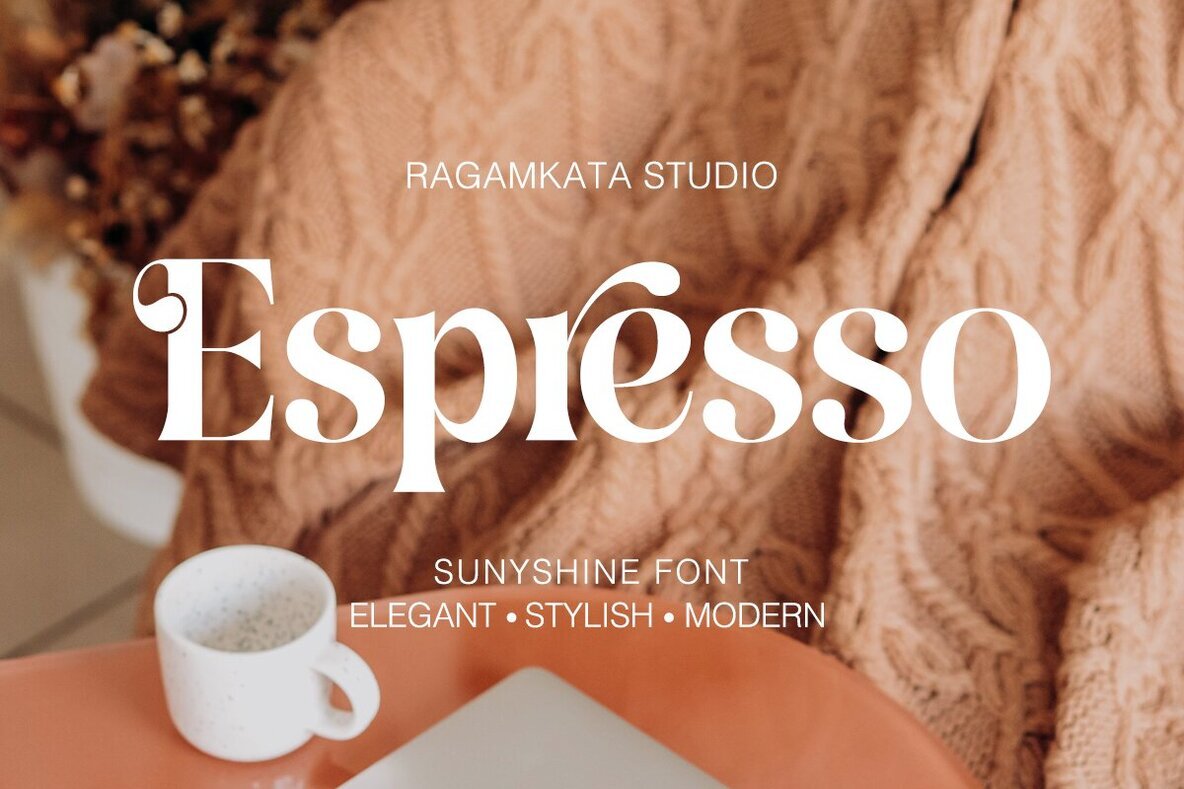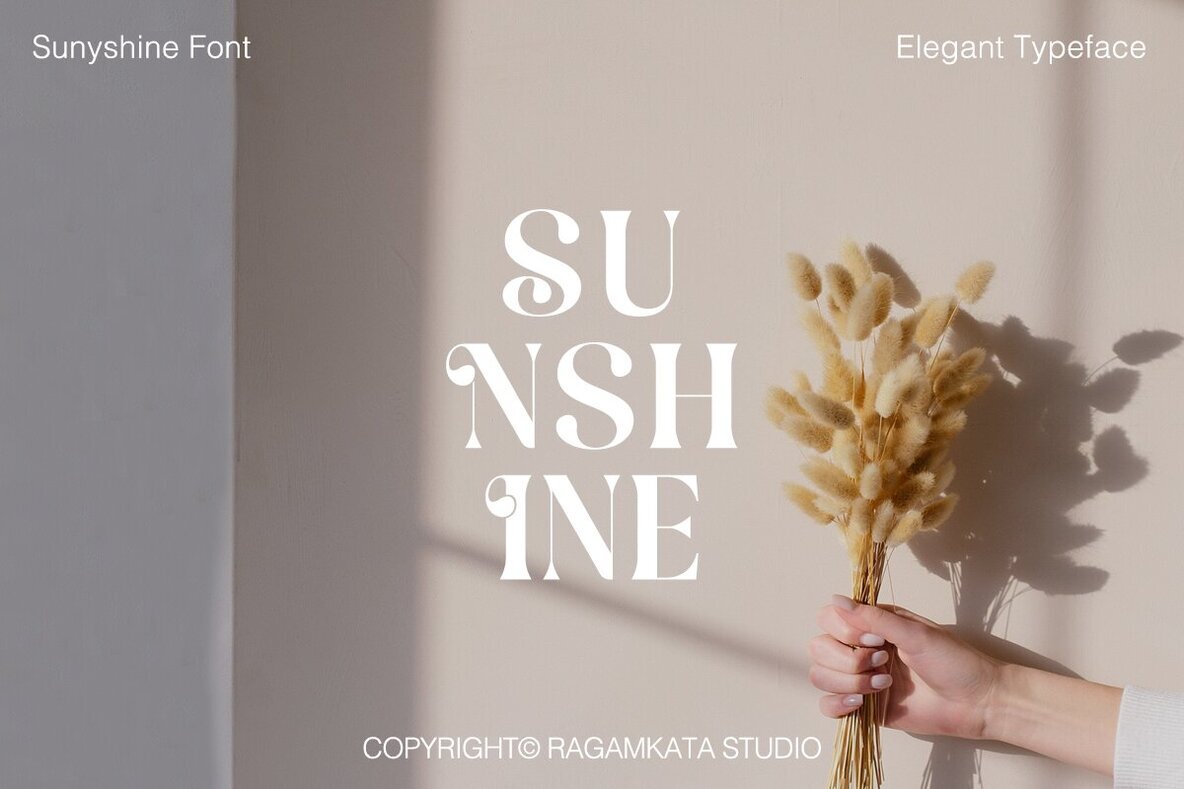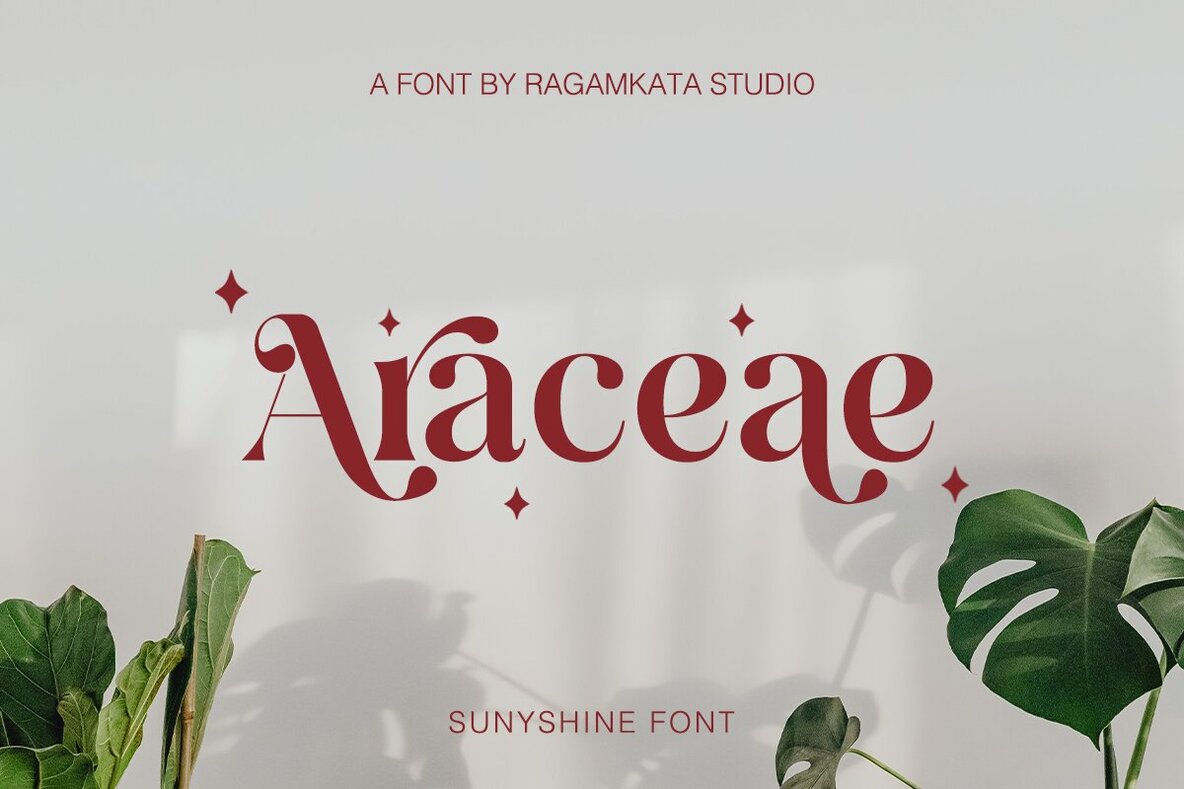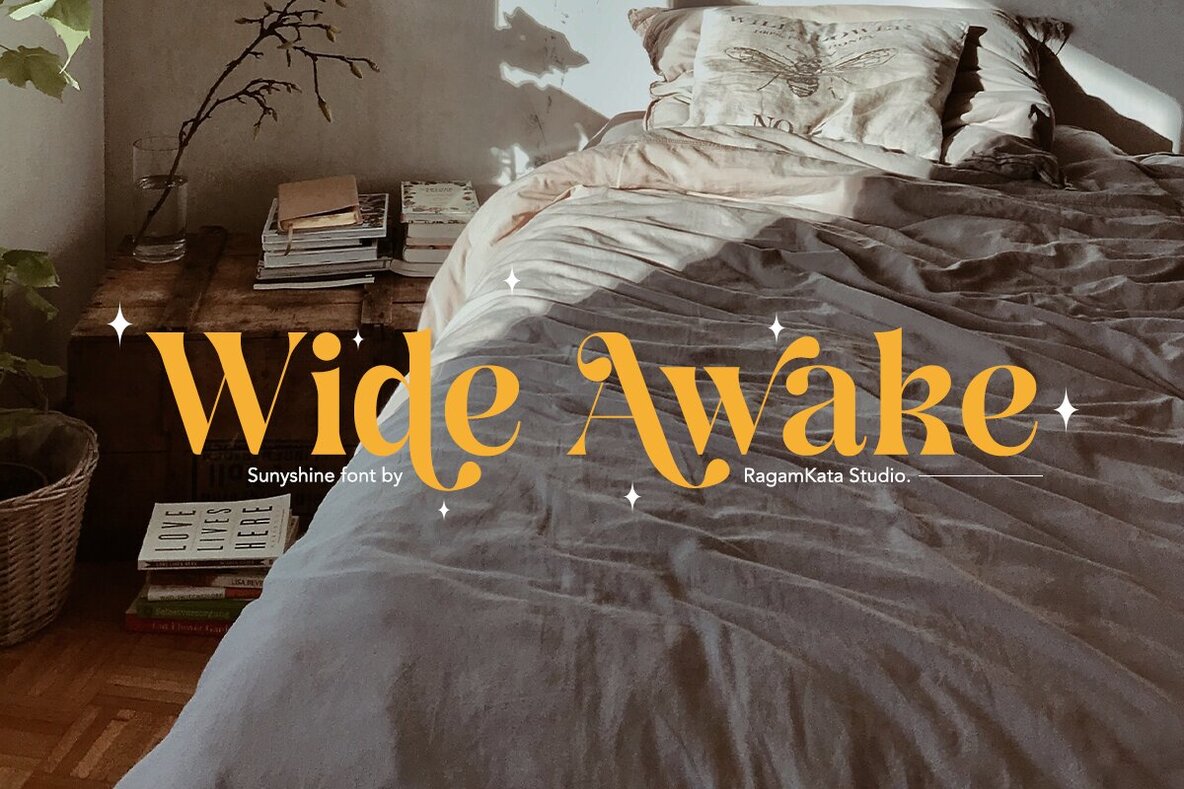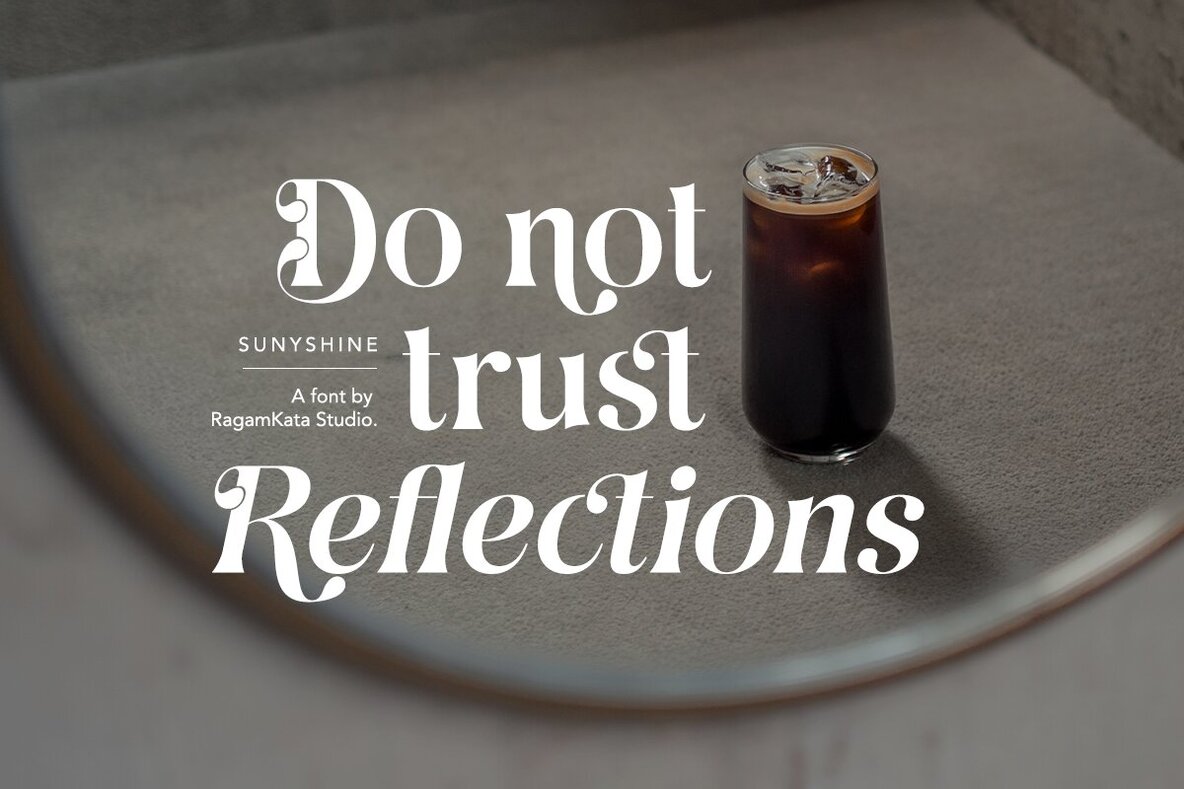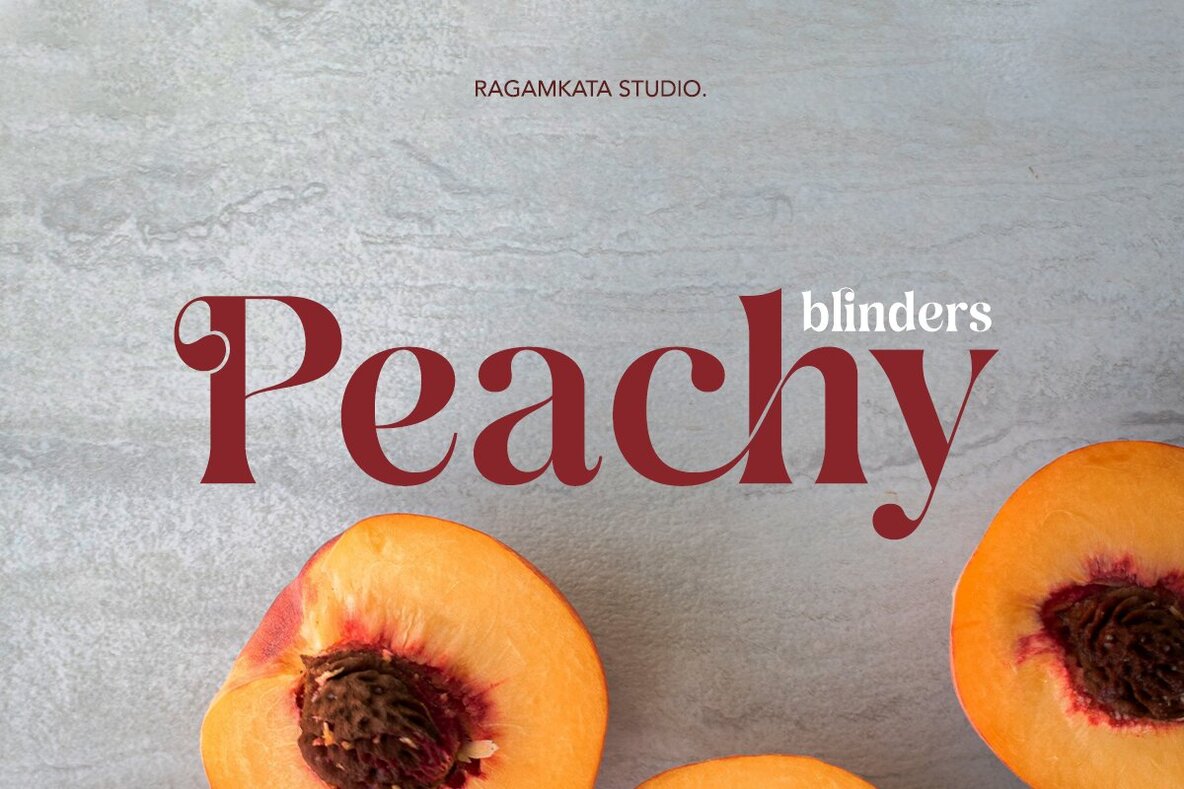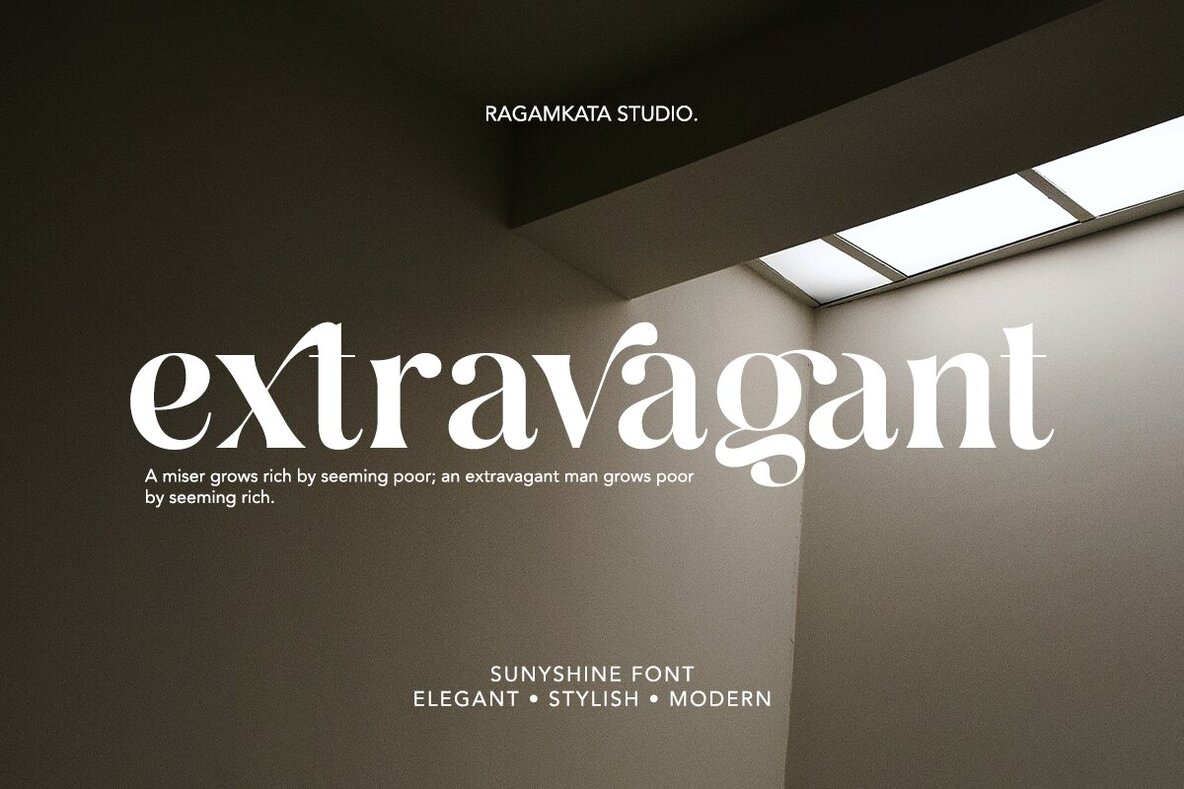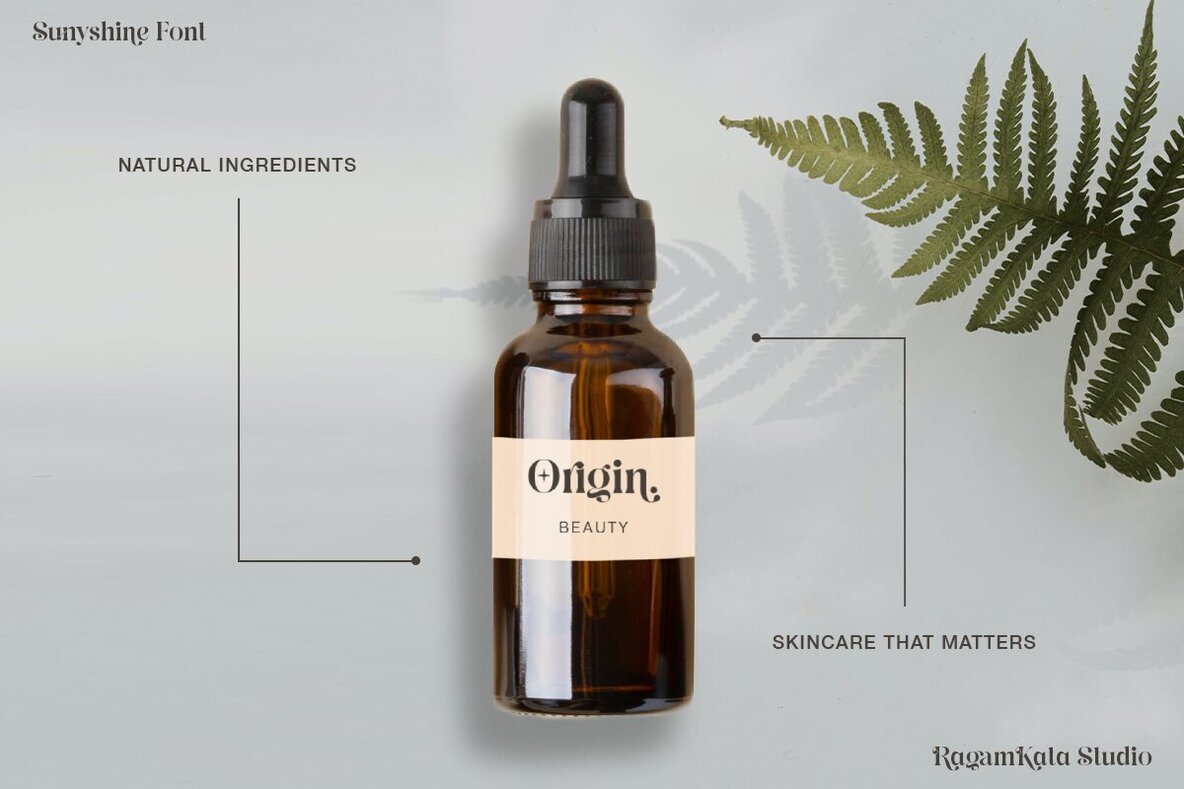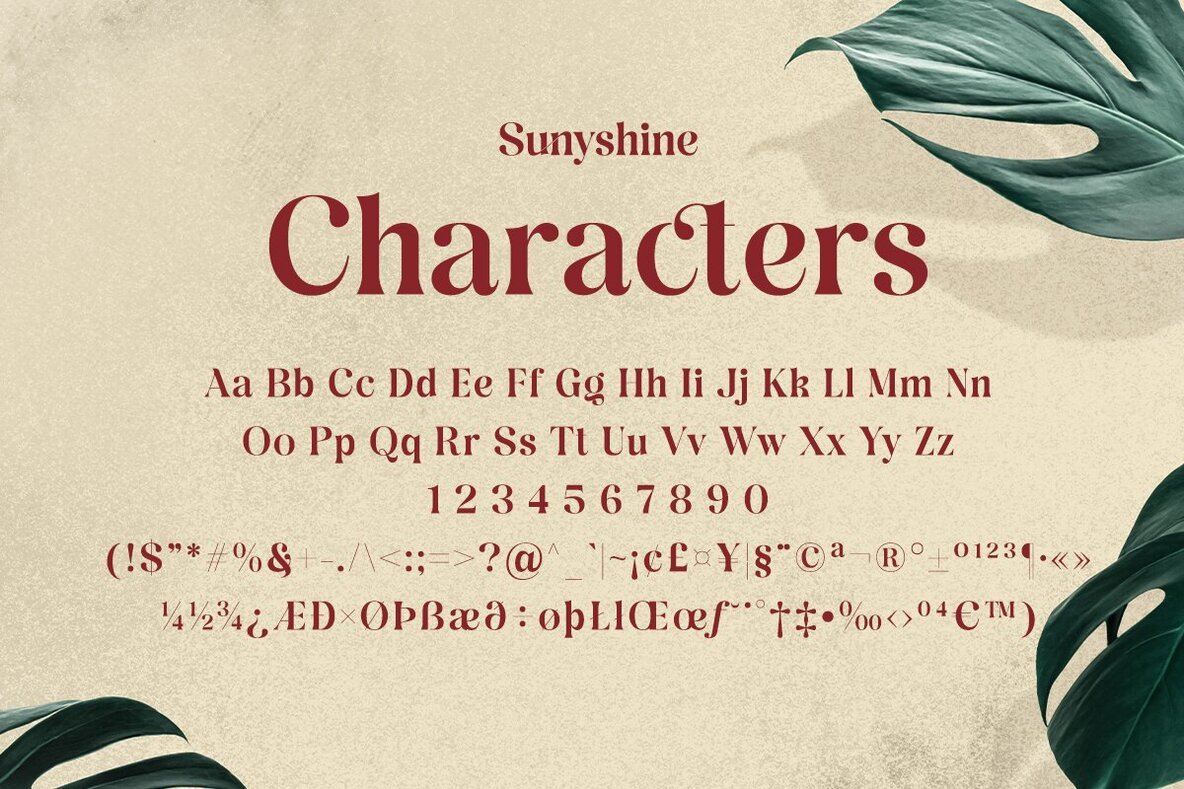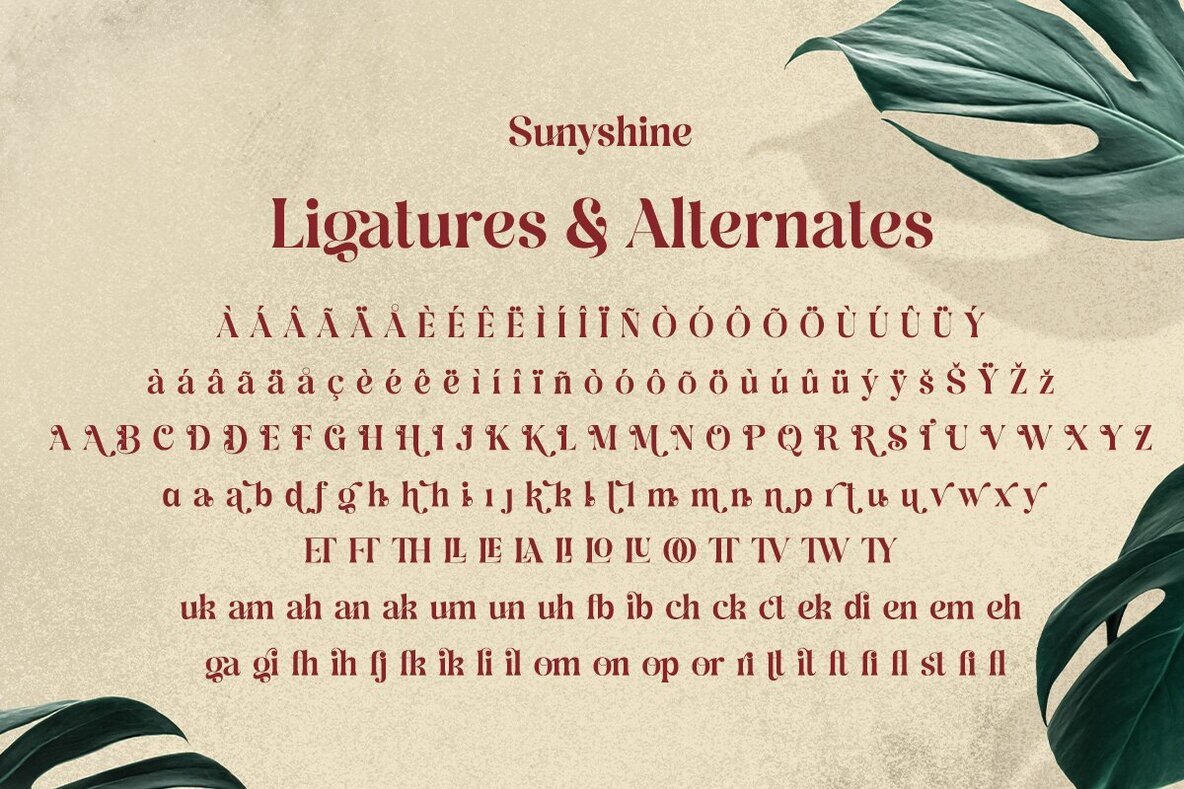
Sunyshine Font
Sunyshine is an elegant and stylish font designed to illuminate your projects. With its graceful shapes and ligatures, this typeface adds a refined touch to any design. Sunyshine is perfect for creating luxury logos, classy editorial designs, fashion brands, and promotional materials. Enhance your designs with Sunyshine's fine aesthetics. If you have any questions, please contact us. For more exclusive fonts, visit our studio, Ragamkata Studio. Enjoy crafting and bring your ideas to life!Sunyshine: Elegant Typeface for Graceful Designs